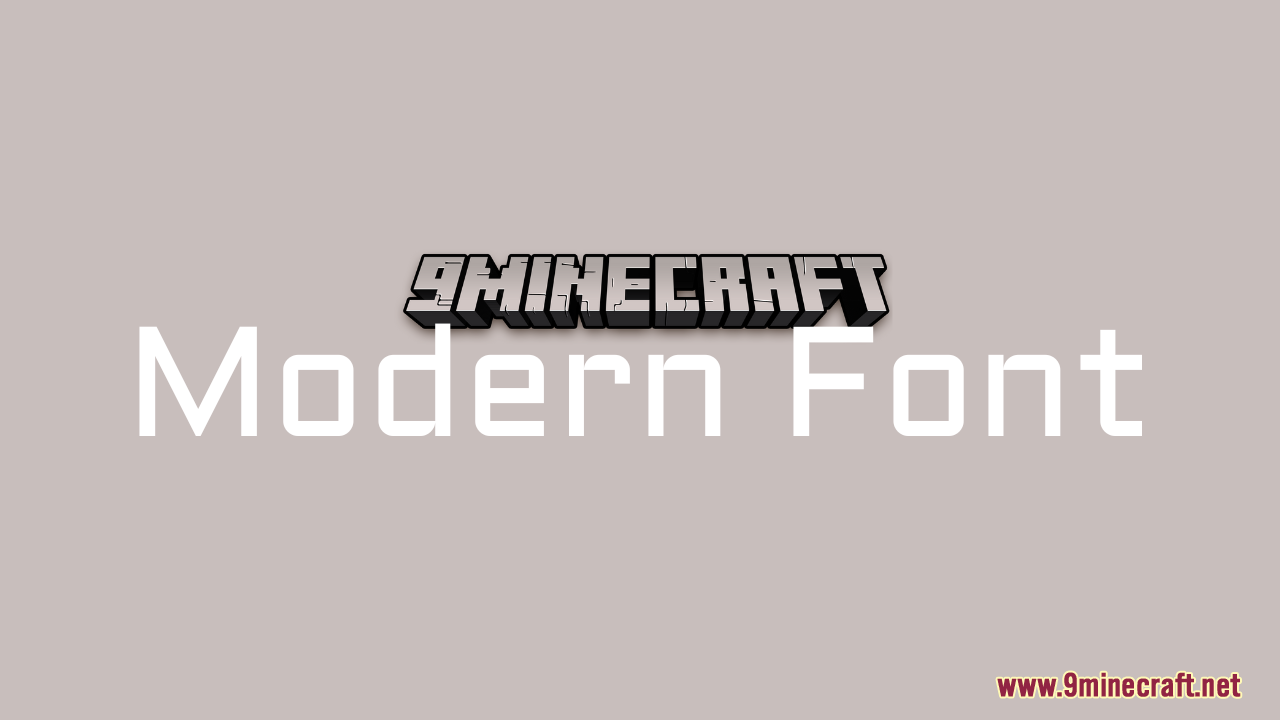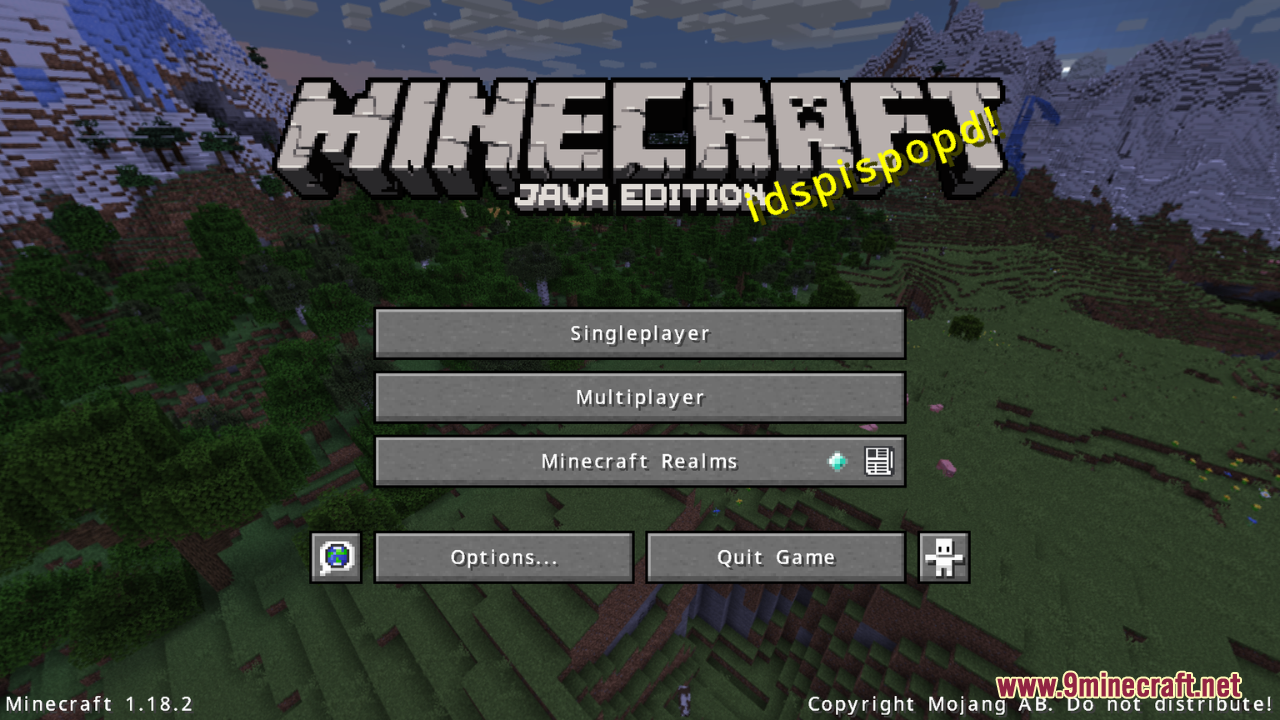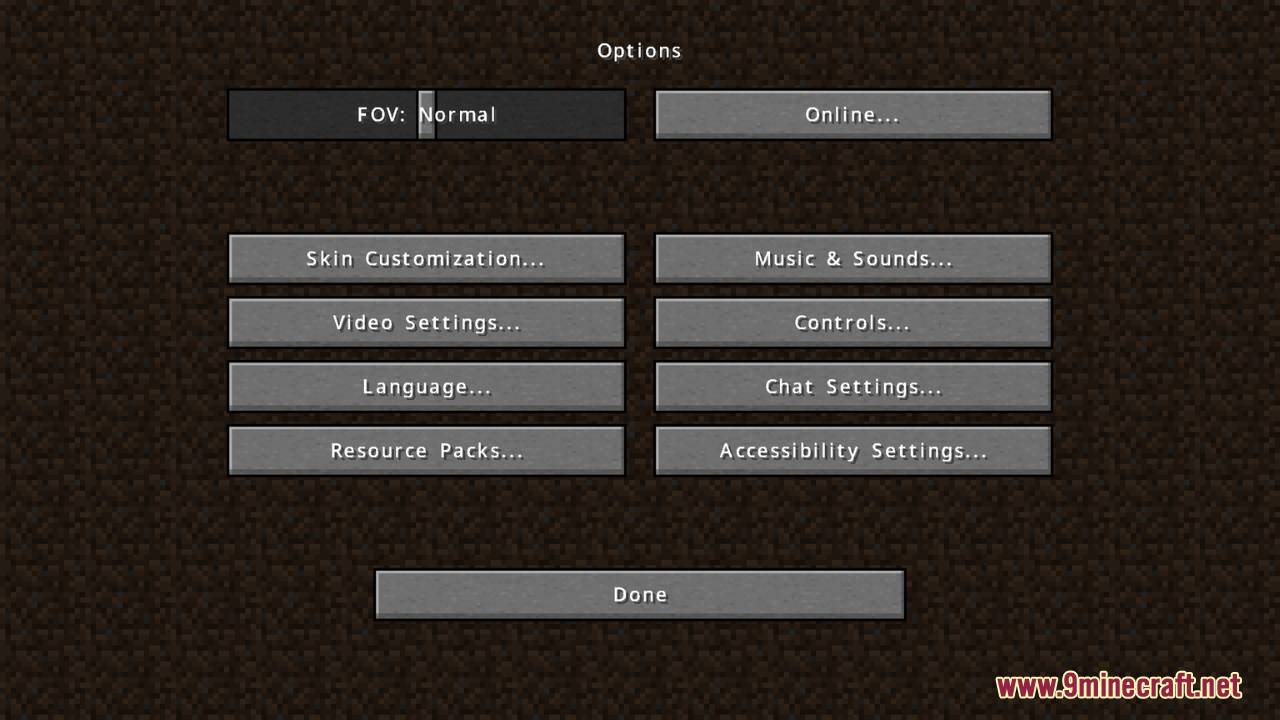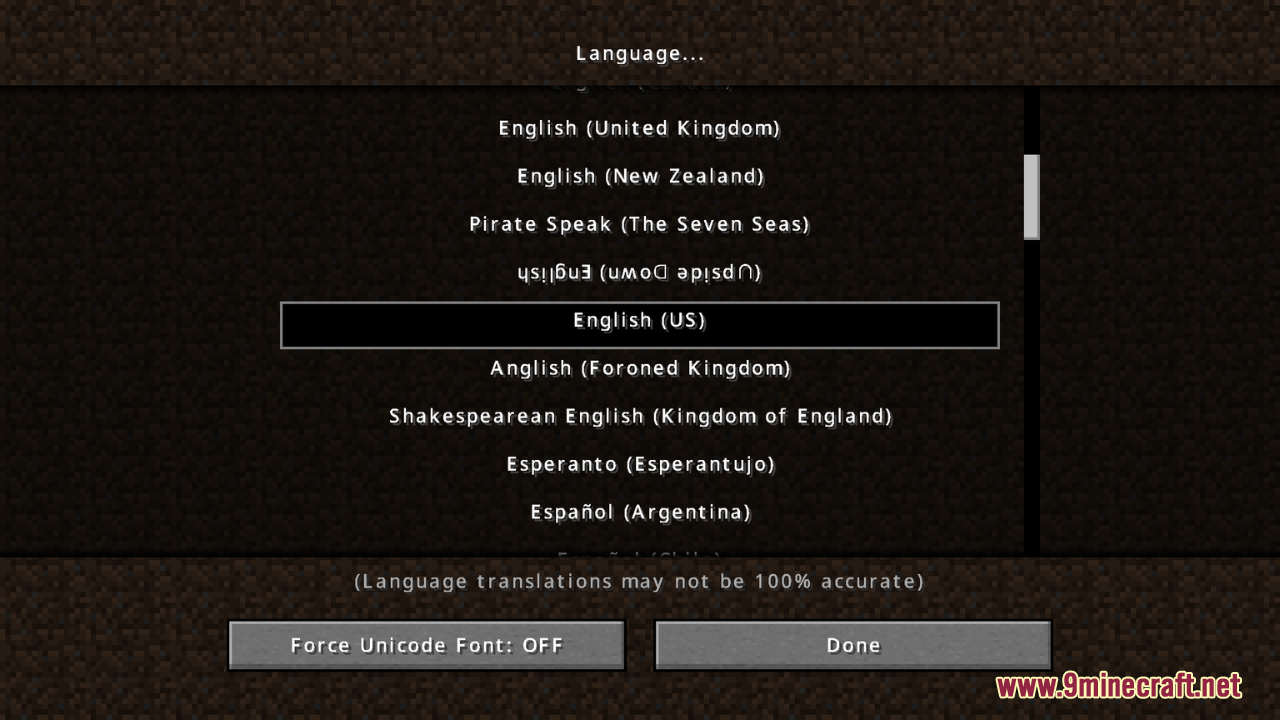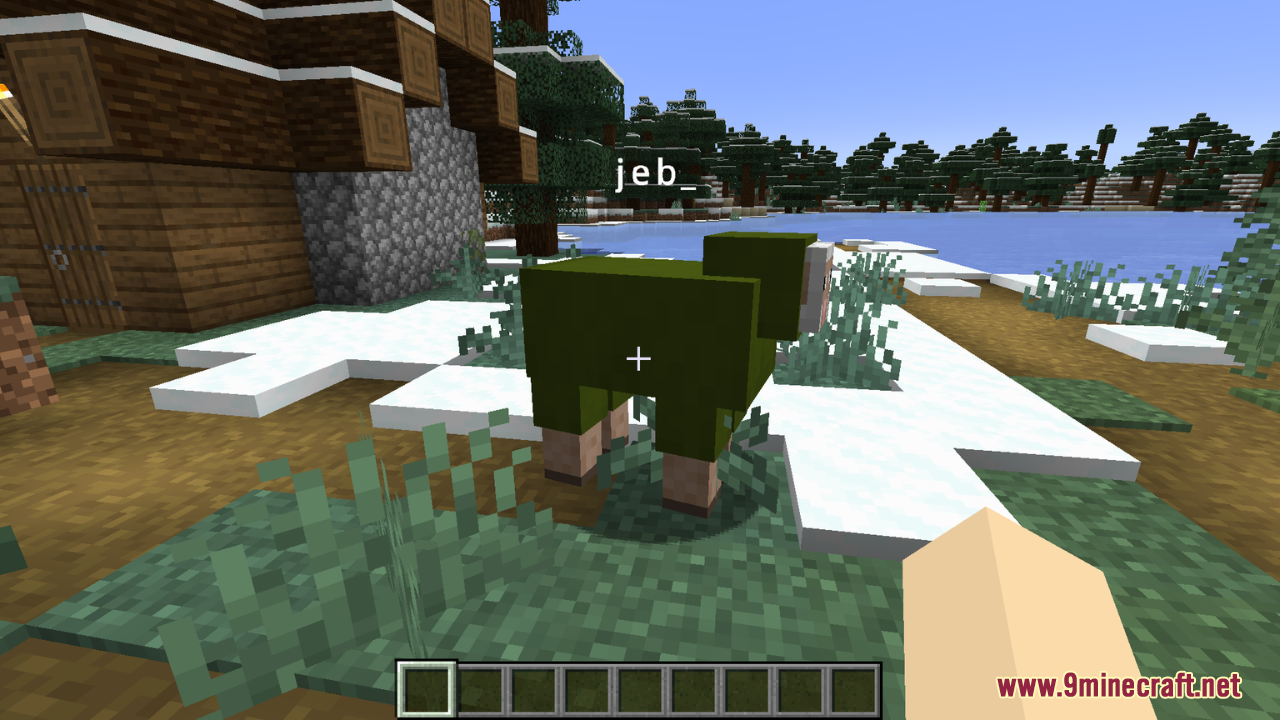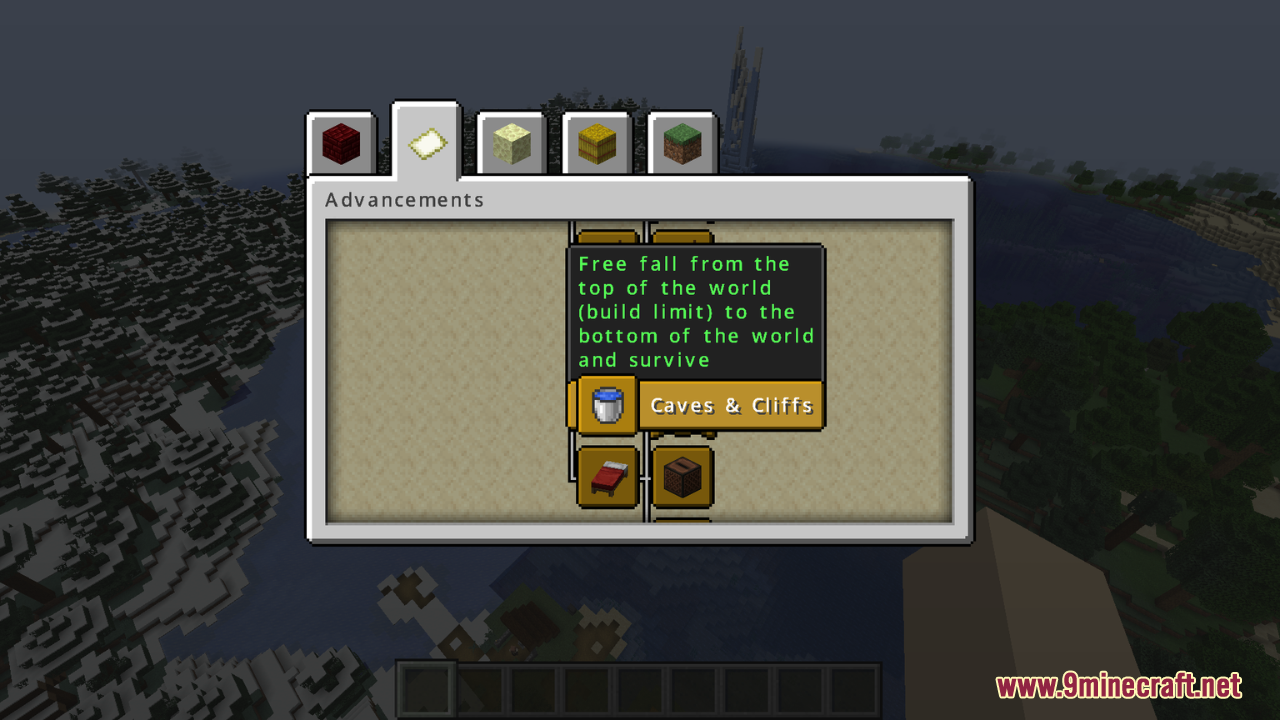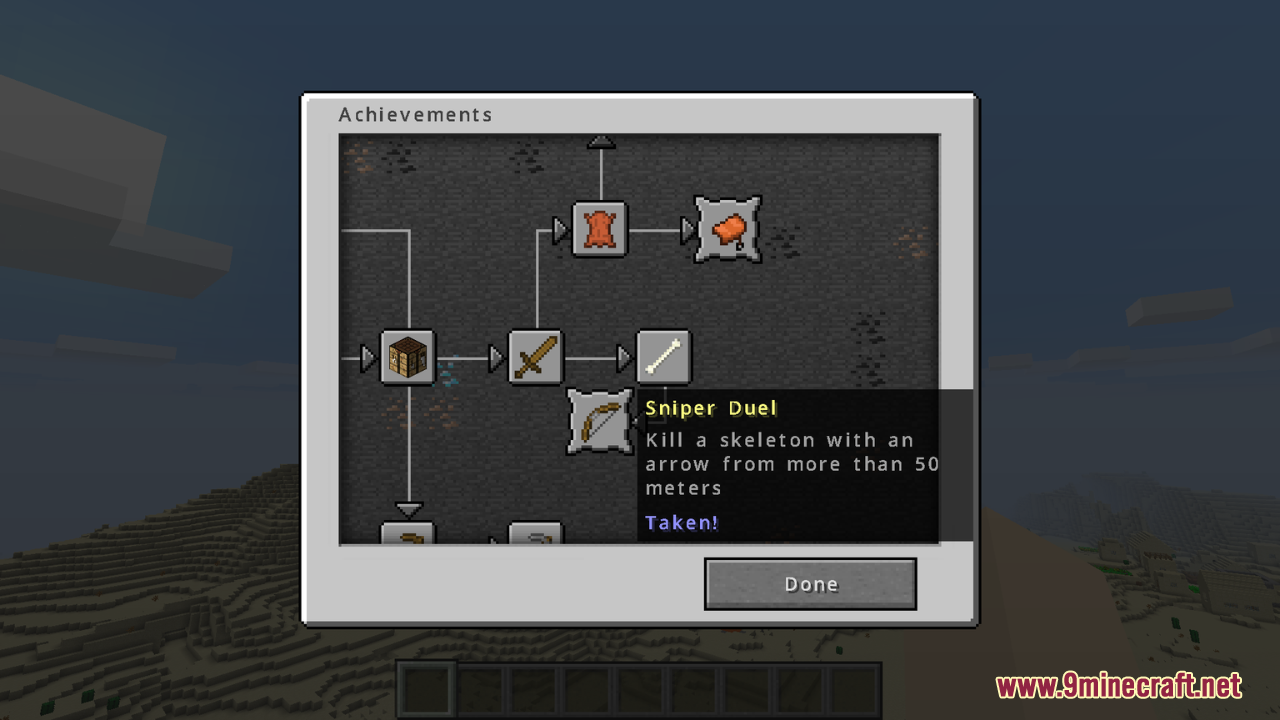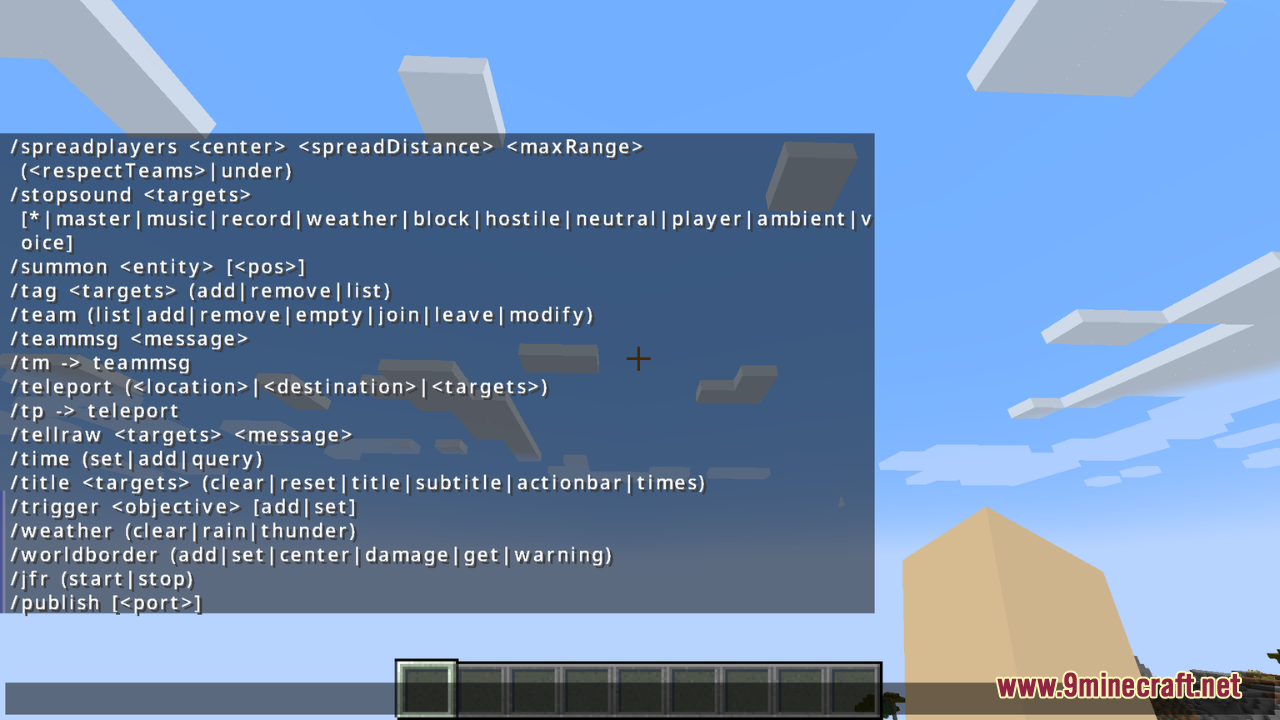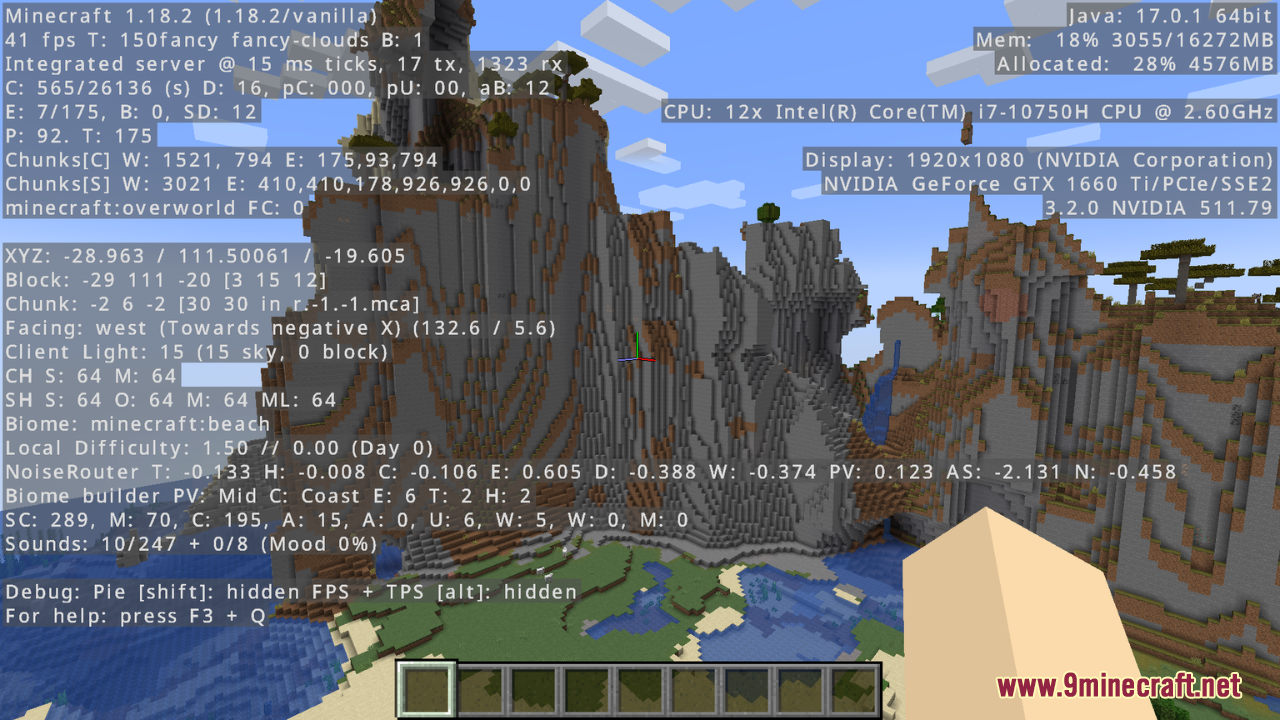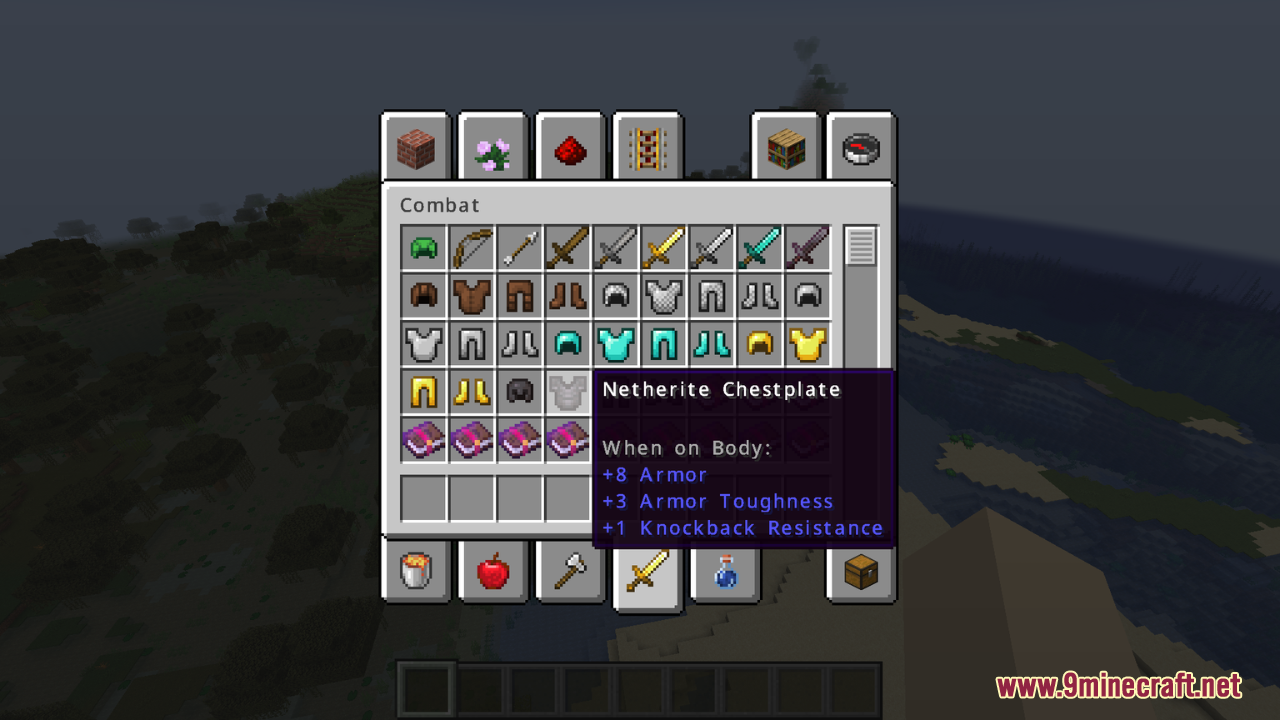
Modern Font Resource Pack (1.21.5, 1.20.1) – Texture Pack
Modern Font Resource Pack (1.21.5, 1.20.1) simply introduces a sleek and contemporary font to Minecraft, replacing the default text with a more modern and clean typeface. This simple change enhances the game’s menus, chat, and item names with a fresh, stylish look, making the text easier to read and visually appealing. It’s perfect for players who prefer a more polished and updated font style while keeping the core feel of Minecraft intact.